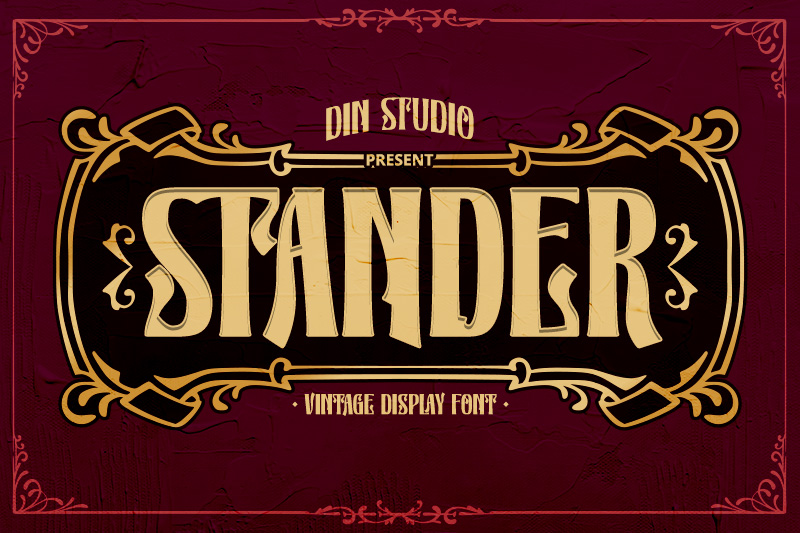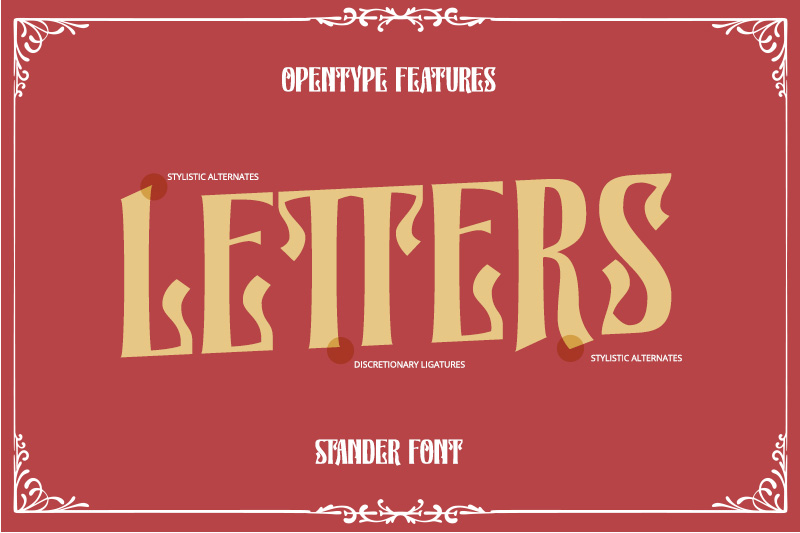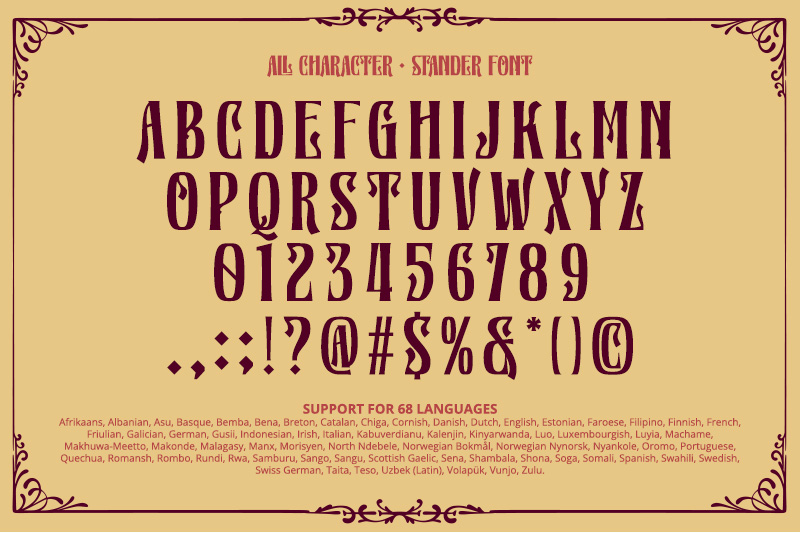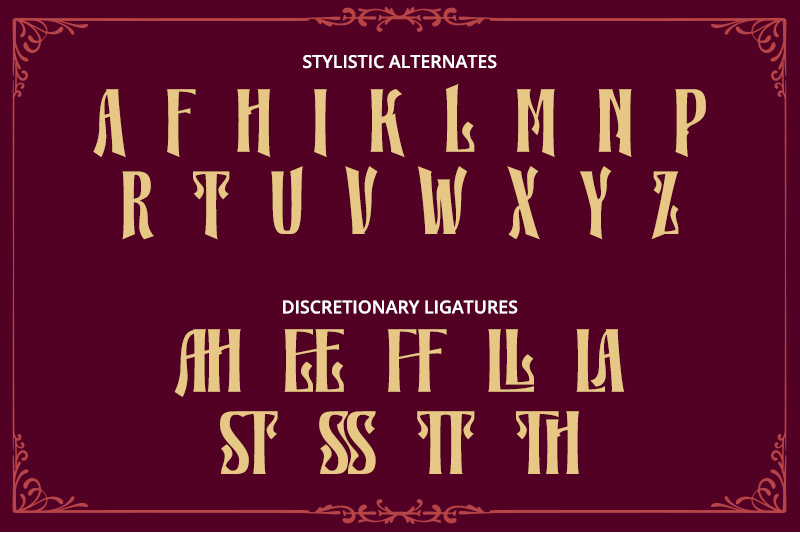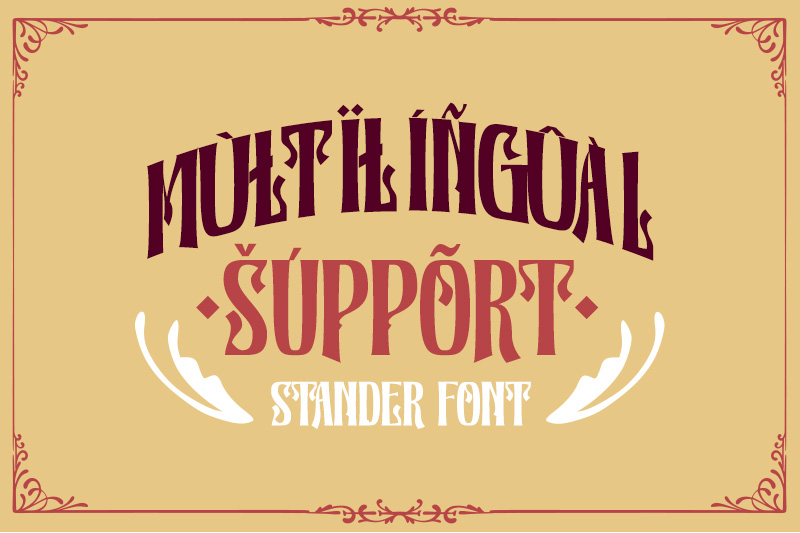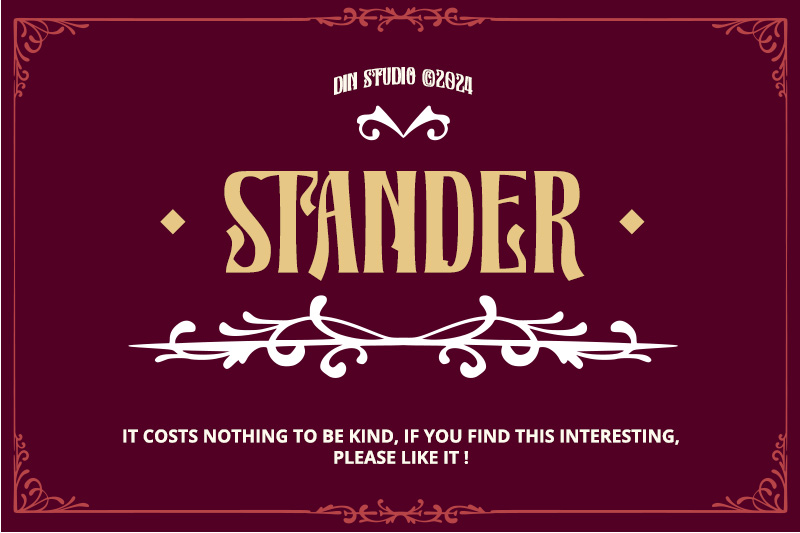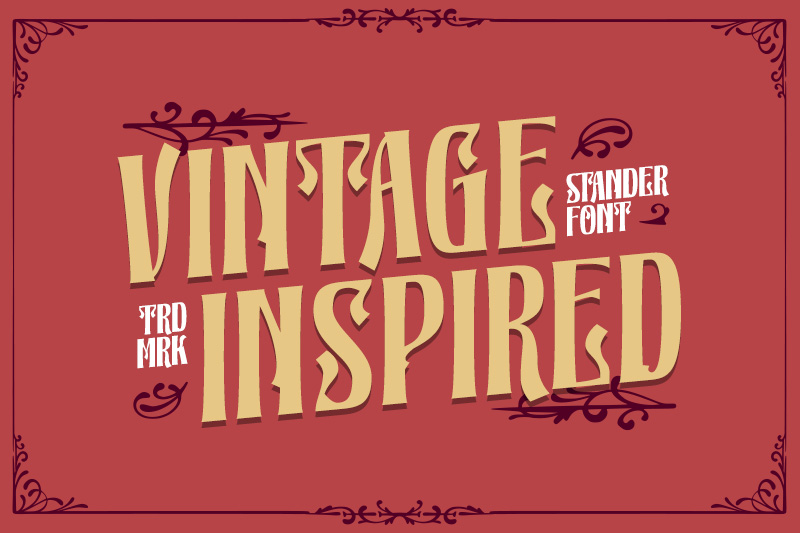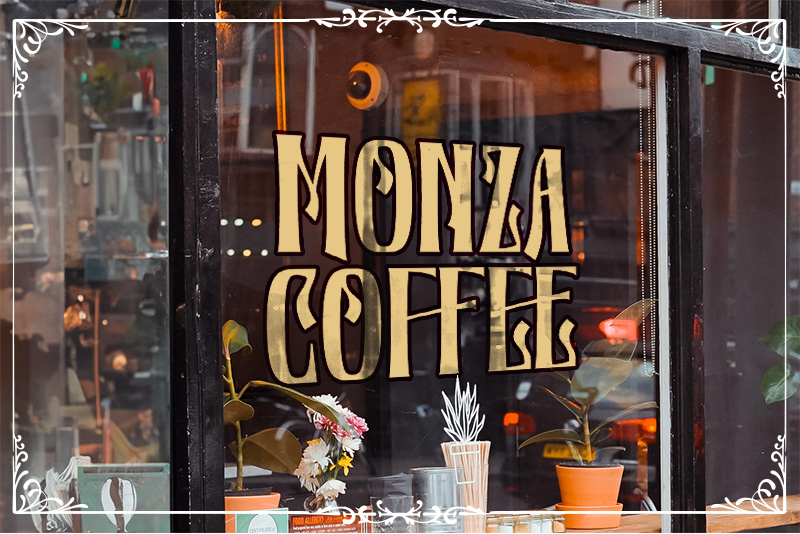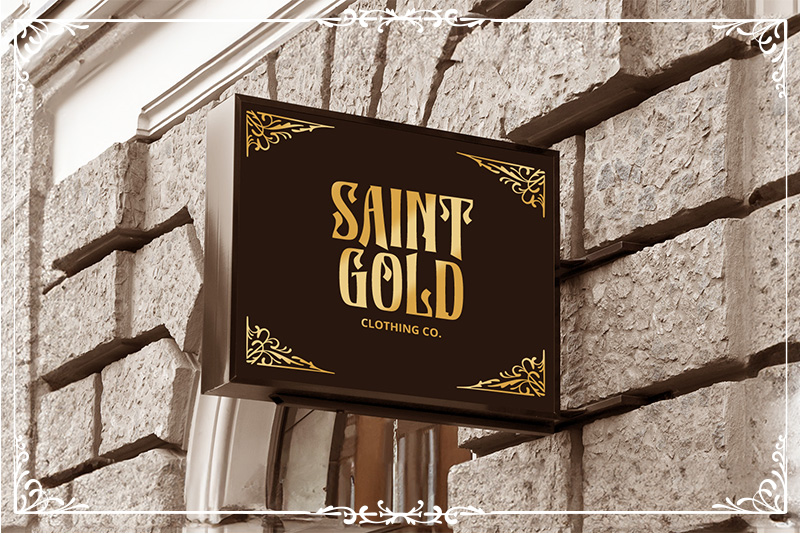
Stander
Introducing Stander-a bold, vintage-style display font designed to stand out with authority. Crafted in uppercases and strong weight that captures attention while evoking a sense of timelessness. The consistent letter proportions provide a balanced and cohesive appearance, making it ideal for headlines, logos, and branding projects that require a classic yet impactful look. As an extra, this font gives ornaments. In addition, enjoy the features here.
• Alternates
• Ligatures
• Multilingual Supports
• PUA Encoded
• Numerals and Punctuations
Stander fits in logos, posters, flyers, branding materials, print media, editorial layouts, and many more designs. Find out more ways to use this font by taking a look at the font preview.